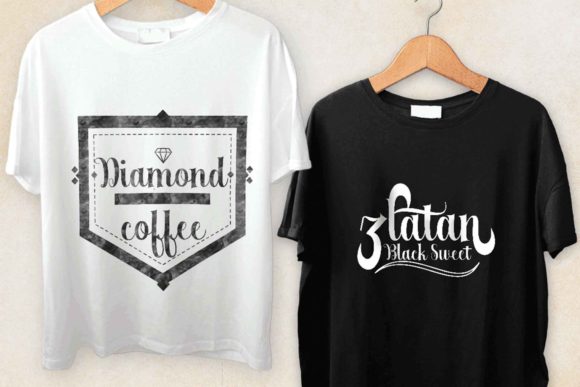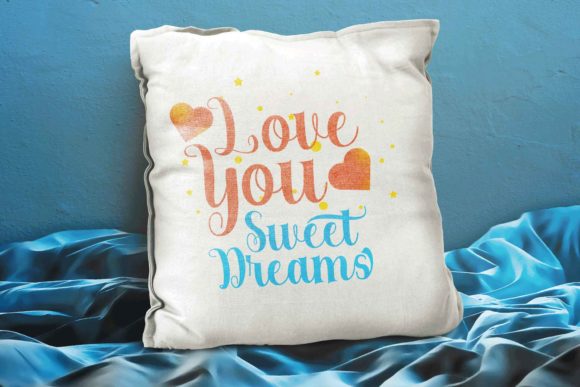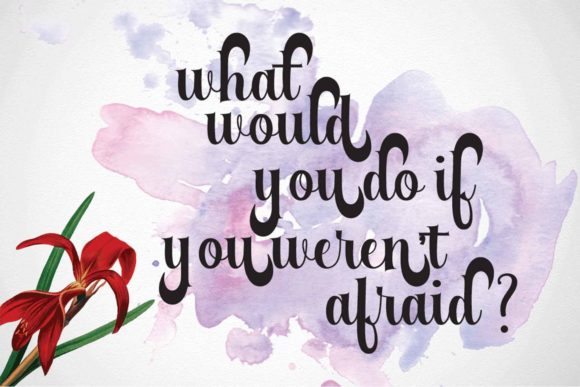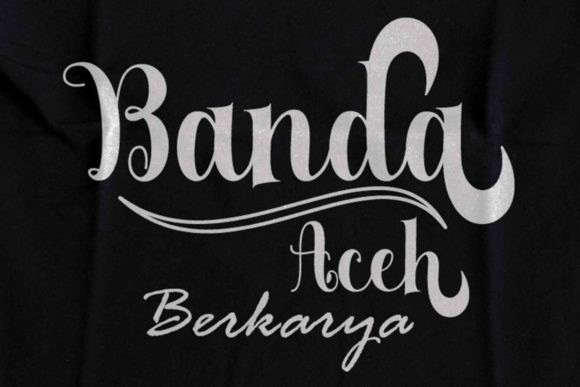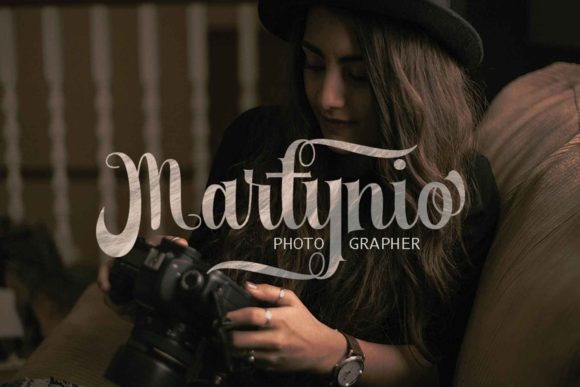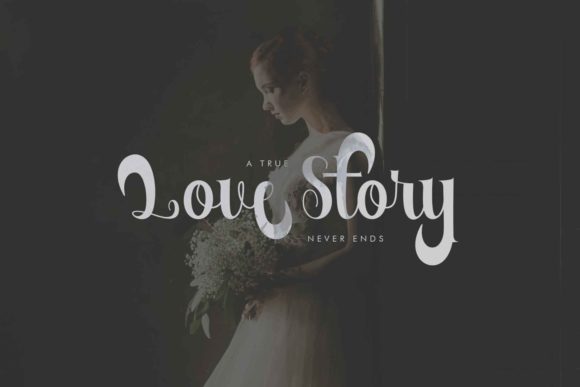
Berkarya Font: Add a Touch of Romance to Your Designs
Are you looking for a font that can add a romantic feel to your designs? Look no further than Berkarya Font. This dazzling handwritten font is perfect for a wide range of applications, from greeting cards to headlines, and is sure to make your project stand out. In this article, we’ll take a closer look at Berkarya Font and explore its features, benefits, and uses.
What is Berkarya Font?
Berkarya Font is a versatile script font that is designed to add a touch of elegance and romance to your designs. Its beautiful, flowing script and intricate swashes make it perfect for a variety of projects, including wedding invitations, greeting cards, and headlines. The font is PUA encoded, which means you can access all of the beautiful glyphs and swashes with ease.
Features of Berkarya Font
- Handwritten script: Berkarya Font has a beautiful, handwritten script that is perfect for adding a personal touch to your designs.
- PUA encoded: The font is PUA encoded, which means you can access all of the beautiful glyphs and swashes with ease.
- Versatile: Berkarya Font is perfect for a wide range of applications, from greeting cards to headlines.
- Romantic feel: The font is designed to add a romantic feel to your designs, making it perfect for wedding invitations and other special occasions.
Benefits of Using Berkarya Font
There are many benefits to using Berkarya Font in your designs. Here are just a few:
- Adds a personal touch: The handwritten script of Berkarya Font adds a personal touch to your designs, making them more unique and special.
- Easy to use: The font is PUA encoded, which means you can access all of the beautiful glyphs and swashes with ease.
- Versatile: Berkarya Font is perfect for a wide range of applications, from greeting cards to headlines.
- High-quality: The font is designed to be high-quality and professional, making it perfect for commercial use.
Uses of Berkarya Font
Berkarya Font is perfect for a wide range of applications, including:
- Greeting cards: The font is perfect for creating beautiful and unique greeting cards for special occasions.
- Wedding invitations: Berkarya Font is a popular choice for wedding invitations, as it adds a romantic and elegant touch to the design.
- Headlines: The font is perfect for creating eye-catching headlines for magazines, newspapers, and other publications.
- Logos: Berkarya Font can be used to create beautiful and unique logos for businesses and brands.
Tips for Using Berkarya Font
Here are a few tips for using Berkarya Font in your designs:
- Use it sparingly: Berkarya Font is a beautiful and elegant font, but it can be overwhelming if used too much. Use it sparingly to add a touch of romance to your designs.
- Experiment with different colors: The font looks great in a variety of colors, so experiment with different colors to find the one that works best for your design.
- Pair it with other fonts: Berkarya Font can be paired with other fonts to create a unique and interesting design.
Berkarya Font is a beautiful and versatile script font that is perfect for adding a romantic feel to your designs. Its handwritten script, PUA encoding, and elegant swashes make it perfect for a wide range of applications, from greeting cards to headlines. With its many benefits and uses, Berkarya Font is a great choice for designers and crafters looking to add a touch of elegance and romance to their designs.